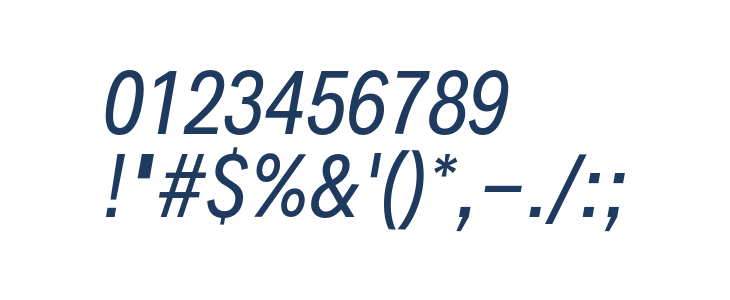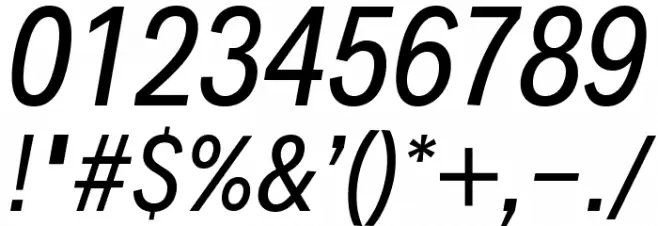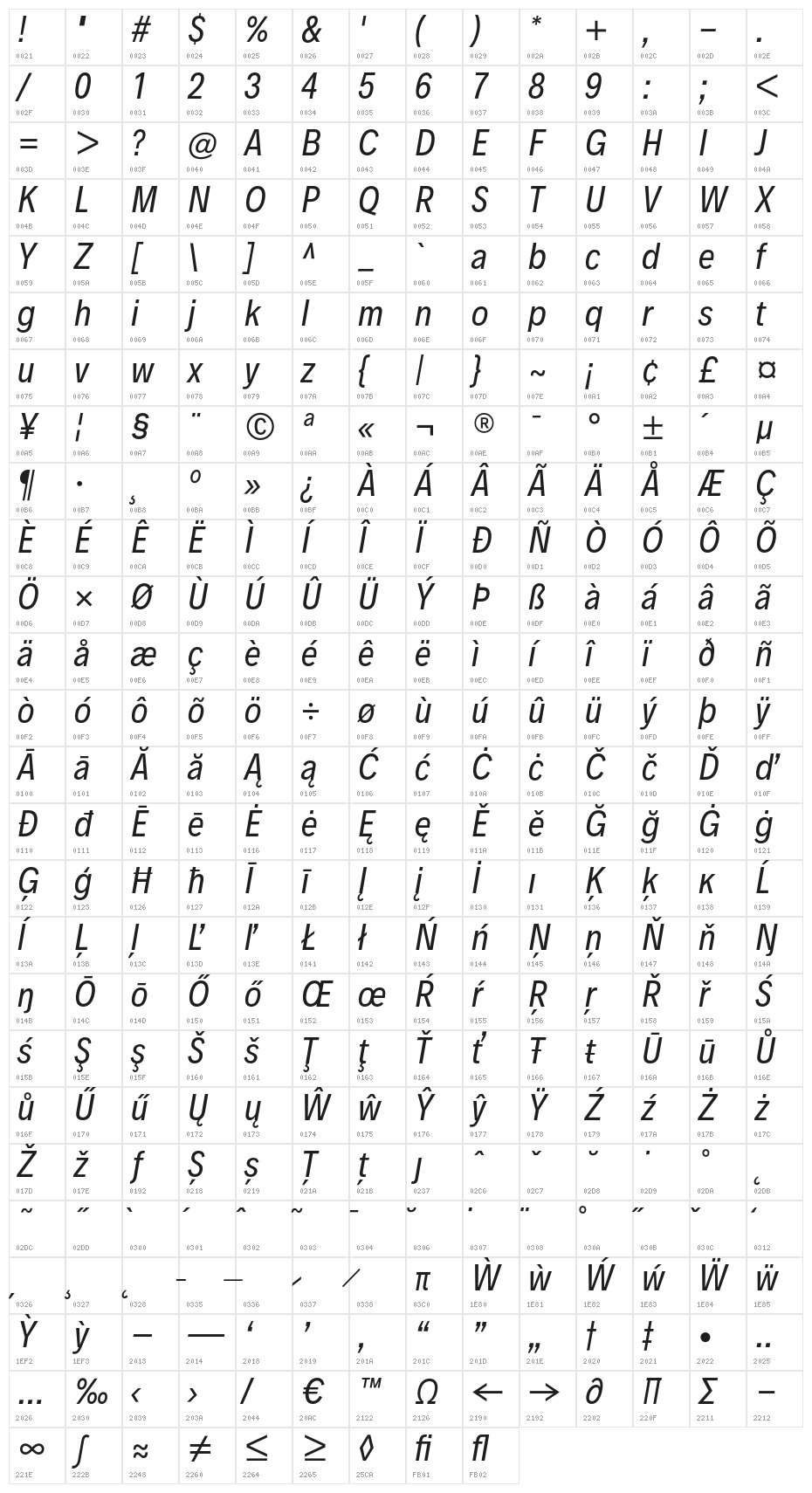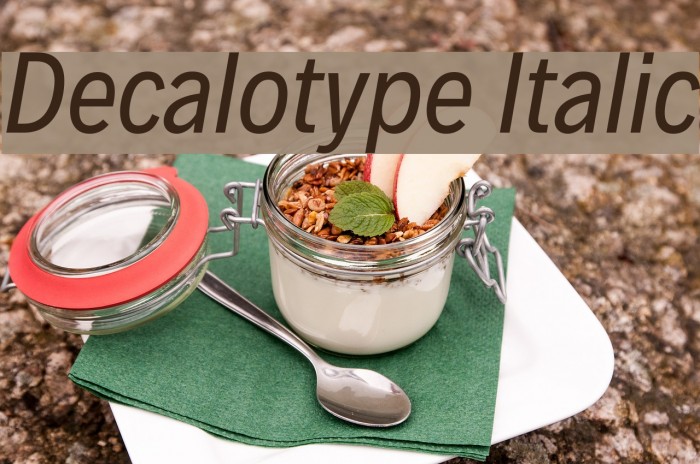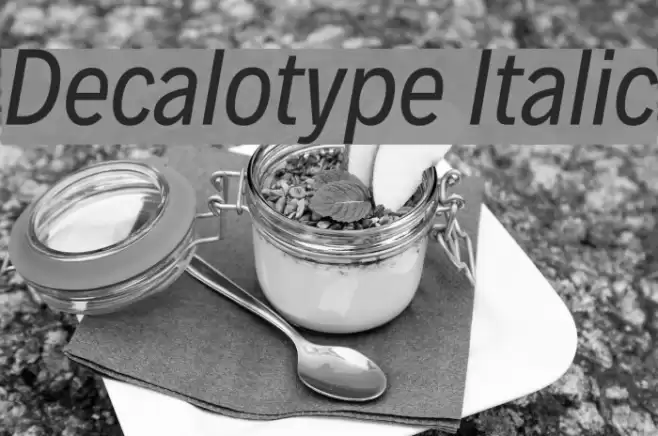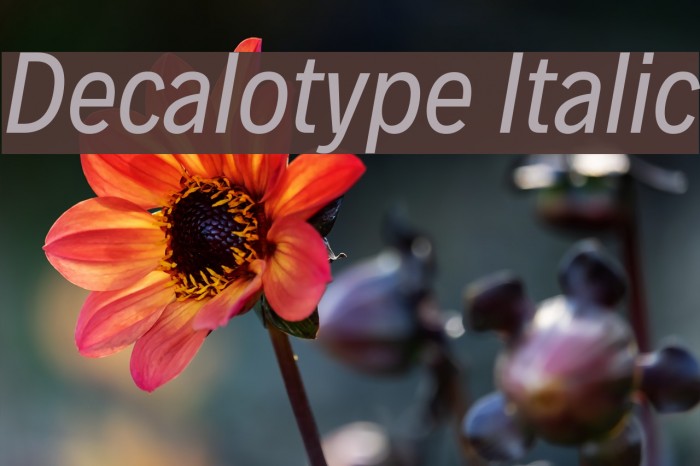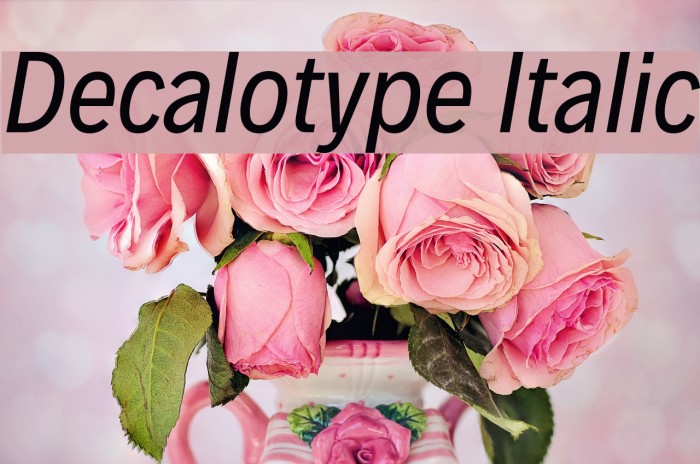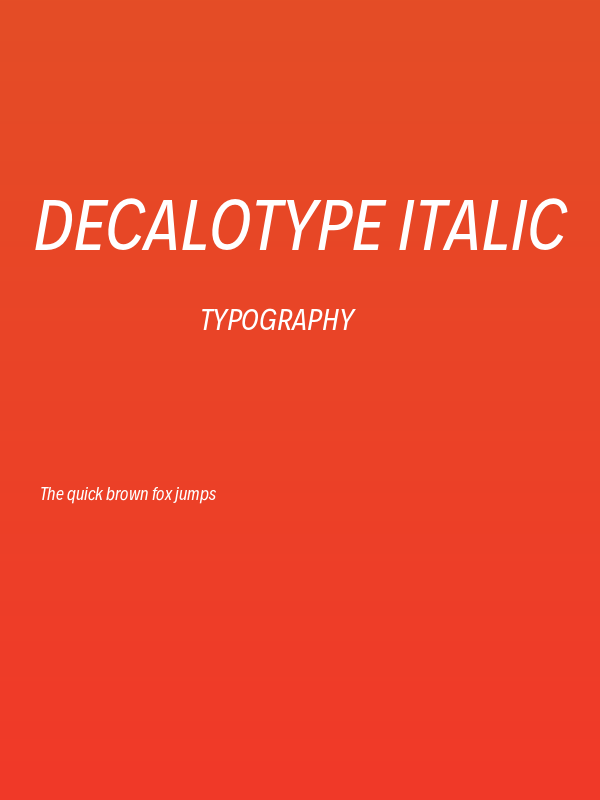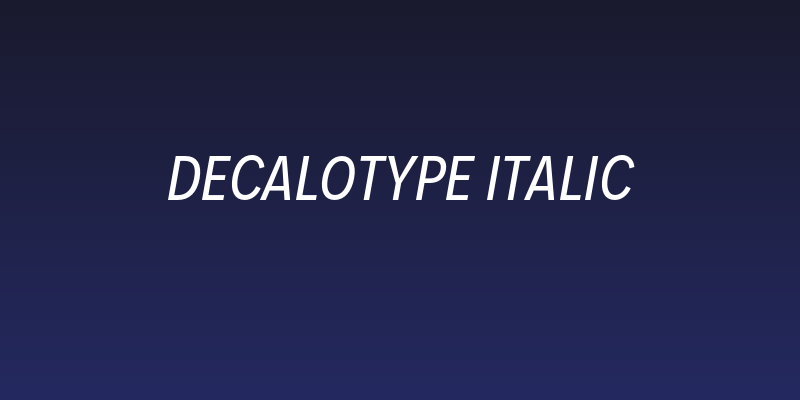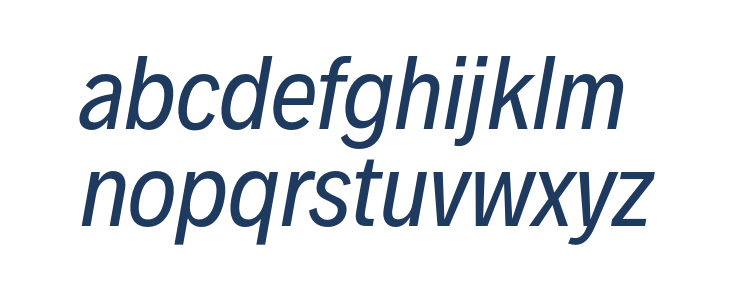
Decalotype Italic Font
Decalotype Italic Description
This font features a sleek and modern italic style, characterized by its clean lines and smooth curves. The letters are slightly slanted, giving a dynamic and forward-moving appearance. The uppercase and lowercase letters maintain a consistent style, with a moderate stroke width that ensures readability. The numerals are well-proportioned and align seamlessly with the alphabetic characters. Special characters are included, offering versatility for various design needs. The overall design is minimalistic yet sophisticated, making it suitable for contemporary applications.
| Proposed Projects | Ideal for branding, advertising, and editorial design where a modern and dynamic look is desired. |